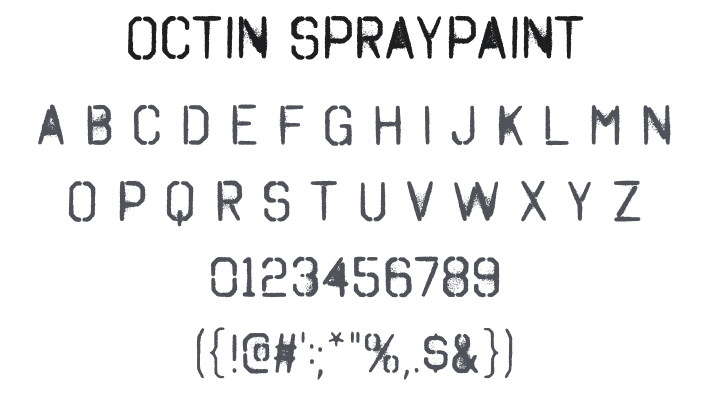
Octin Spraypaint Font
About Octin Spraypaint
Octin Spraypaint brings street energy and industrial grit to typography. Available in sans and serif styles, each with three weights, it balances raw angular forms with solid structure for bold, high-impact design. The sans cuts clean and sharp; the serif adds a rugged, traditional edge. Built for posters, signage, streetwear, and displays that need authority and attitude, it communicates with power and precision. Supporting Latin-based European languages, Octin Spraypaint carries its tough, urban voice across borders and projects, strong, versatile, and unapologetically bold.